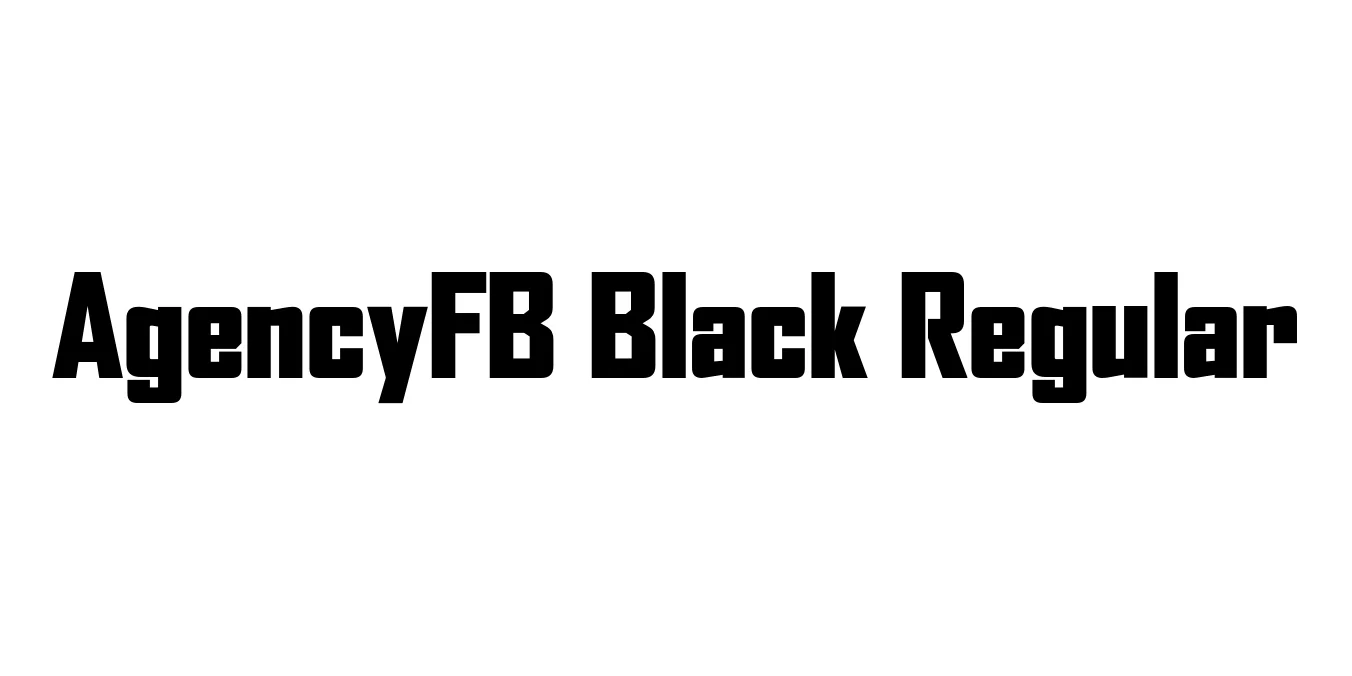
AgencyFB Black Regular
Designed by David Berlow
Agency FB Black Regular is a contemporary sans-serif typeface that finds its origins in the early 20th century. Originally designed as a single titling face by Morris Fuller Benton in 1932, it was later expanded into a multi-weight family by David Berlow for the Font Bureau in 1990. This specific Black Regular weight captures the heavy, industrial strength of the design, stripping away unnecessary flourishes to focus on rigid, geometric forms and condensed proportions.
The aesthetic of Agency FB Black is characterized by its squared-off curves and narrow width, which allow for high-impact messaging in constrained horizontal spaces. It has evolved from its historical roots into a modern staple for high-octane media, frequently appearing in sports broadcasting, action movie promotional materials, and technical user interfaces. Its bold presence and masculine energy make it a favorite for designers who need a font that communicates both authority and speed.
AgencyFB Black Regular Best Uses
Ideal for team logos, jersey numbers, and athletic marketing due to its aggressive, fast-paced look.
Excellent for high-impact action and science fiction titles that require a heavy, cinematic feel.
Perfect for editorial headers where maximum visibility and a modern aesthetic are required.
Highly effective for digital HUDs and gaming menus that need a tech-oriented, futuristic vibe.